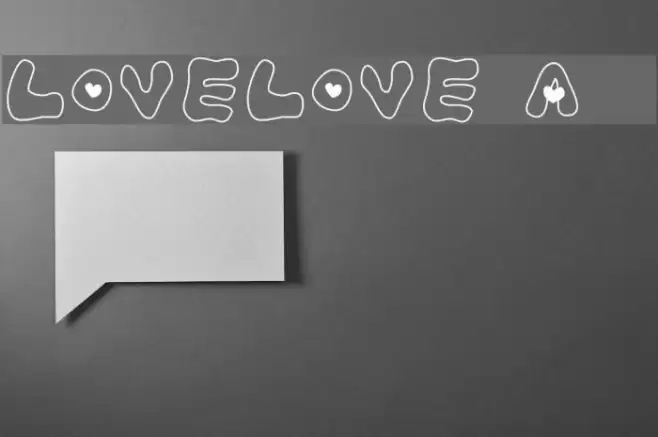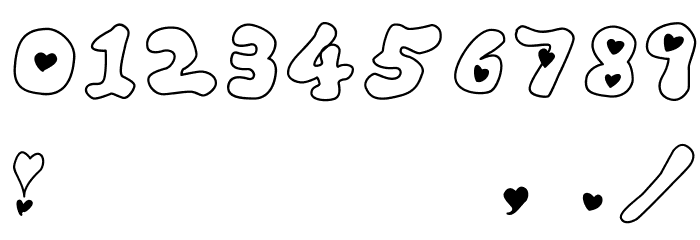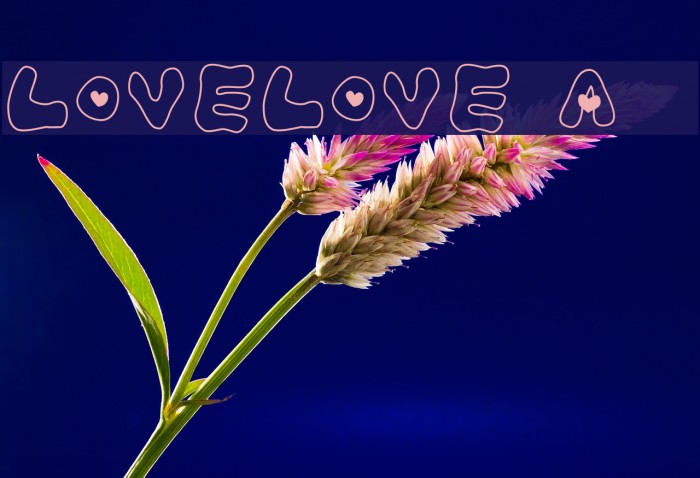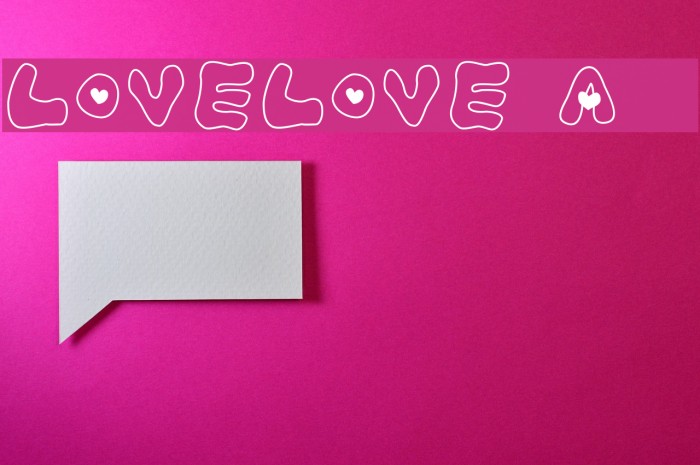
LOVELOVE_Ahan Font
LOVELOVE_Ahan Description
This playful and whimsical font features bold, rounded letters with heart-shaped embellishments integrated into the design. The characters are outlined, giving them a bubble-like appearance, which adds to their charm and appeal. The font is highly decorative, making it ideal for projects that require a fun and lighthearted touch. The numbers and special characters follow the same style, maintaining consistency throughout the set. The heart motifs are prominent, adding a romantic and affectionate feel to the overall design.
A playful, heart-themed decorative font with bold, rounded outlines from Uncategorized fonts.
- Proposed Projects: Ideal for Valentine's Day cards, wedding invitations, children's books, playful branding, and any project that requires a touch of whimsy and romance.
- Use Case: Headlines, Logos, Greeting Cards